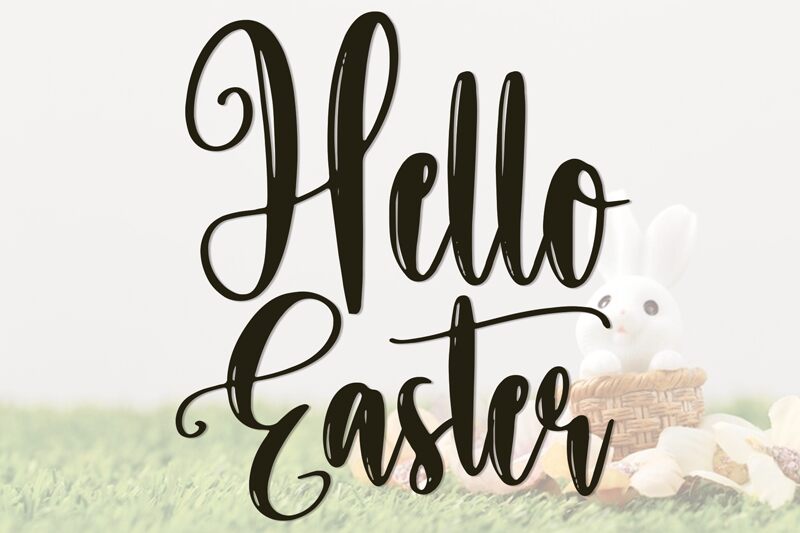
Hello Easter
The "Hello Easter" font, designed by Scratchones, is a captivating handwritten script characterized by its curly, condensed strokes. This whimsical typeface exudes a sense of playfulness and charm, effortlessly capturing the spirit of the Easter season. Its flowing lines and graceful curves create a visually appealing and elegant aesthetic, making it an ideal choice for a wide range of design projects.
This font's versatility shines through its ability to add a touch of warmth and personalization to various applications, from festive greeting cards and holiday invitations to creative packaging designs and decorative signage. Its condensed width allows for a seamless integration into compact layouts, making it a versatile option for both digital and print media. The "Hello Easter" font's unique character and expressive nature are sure to captivate and delight audiences, adding a touch of charm to any project it graces.